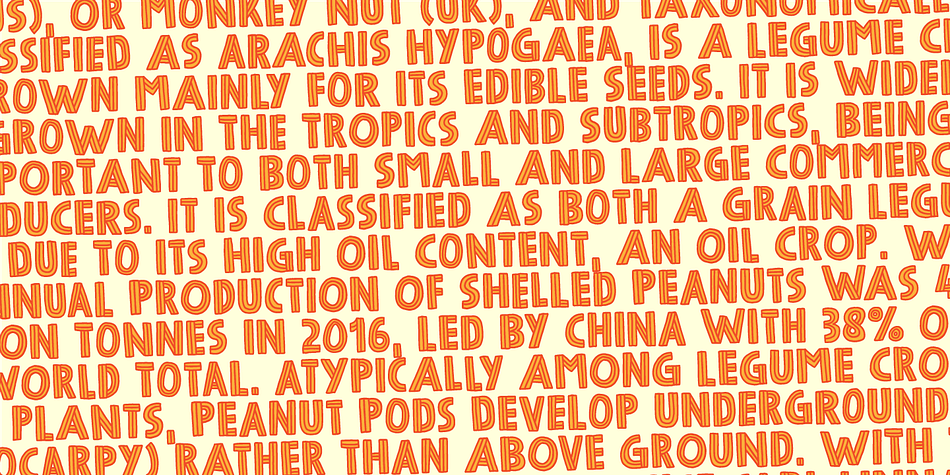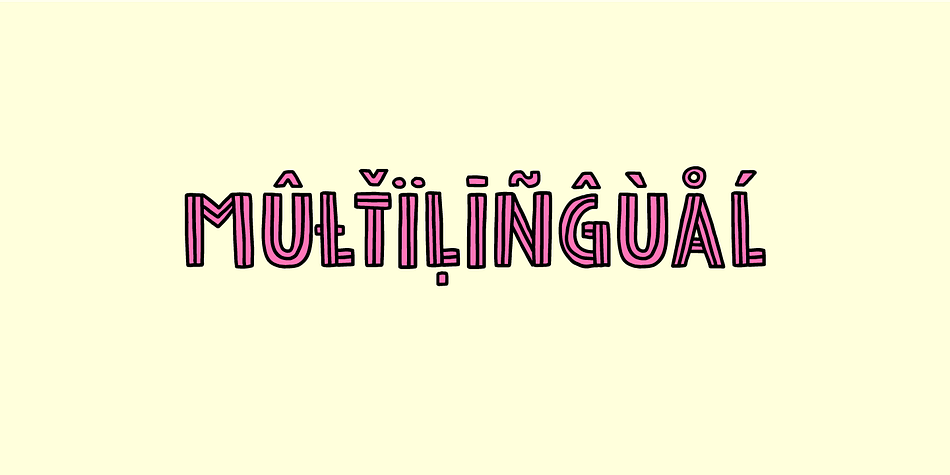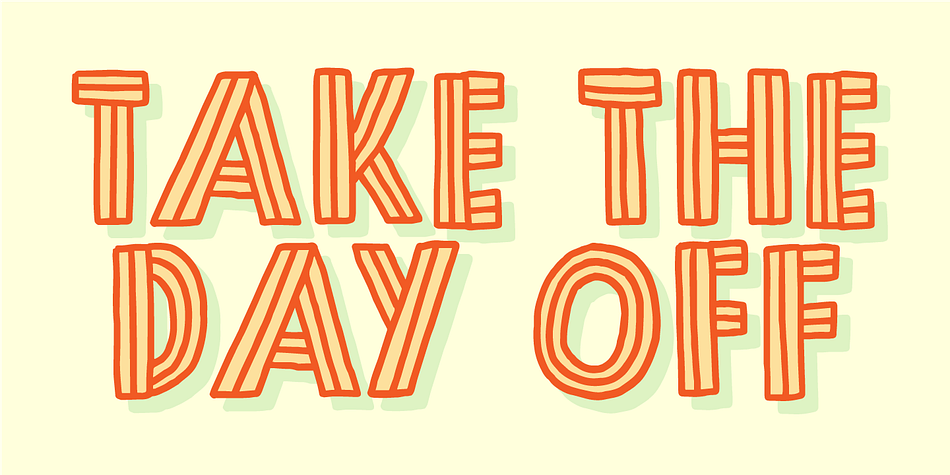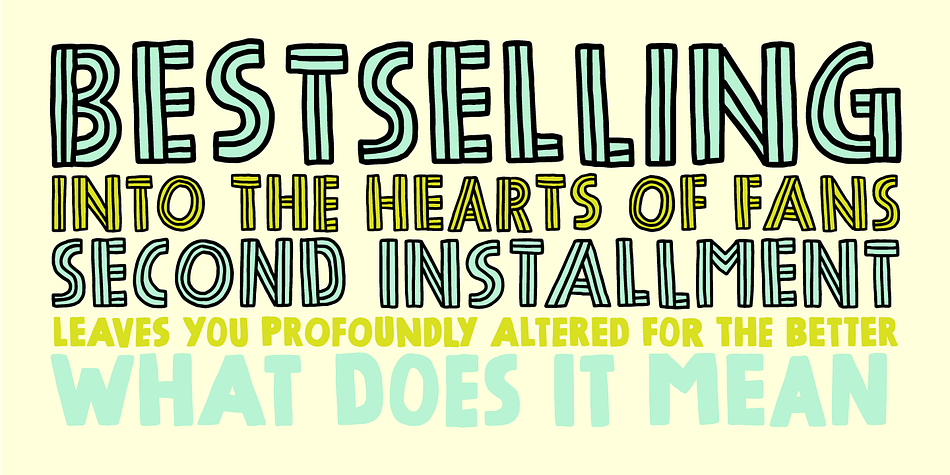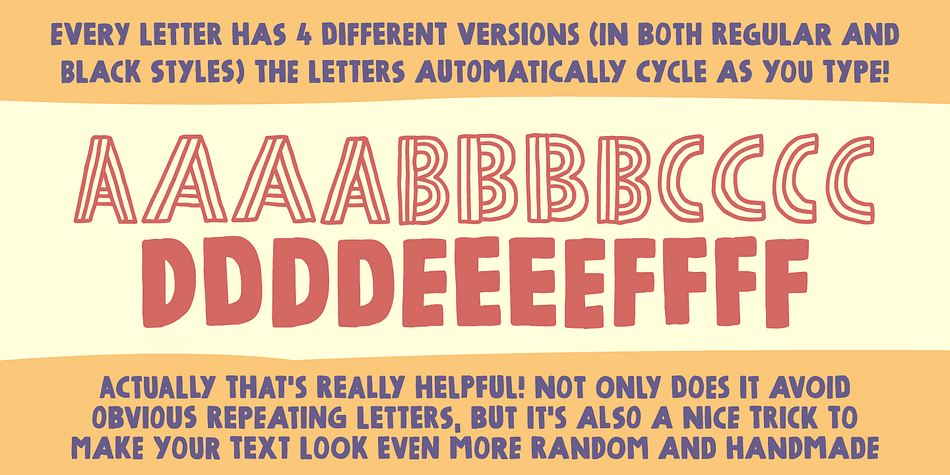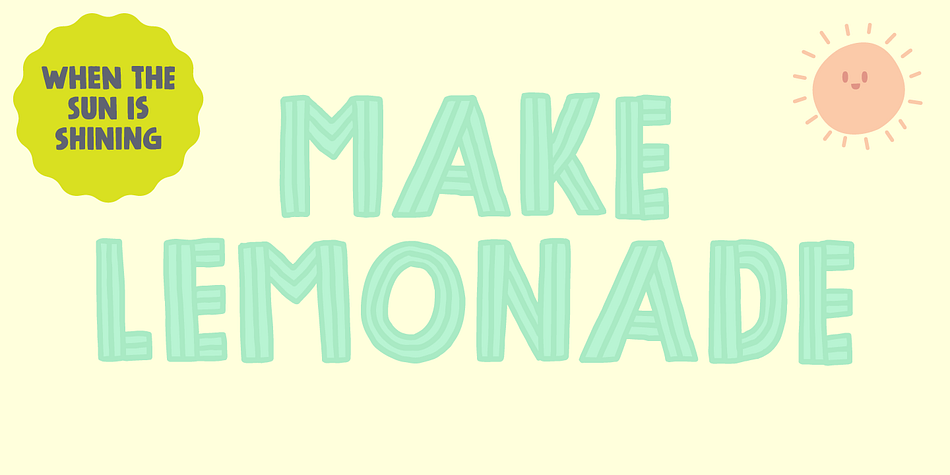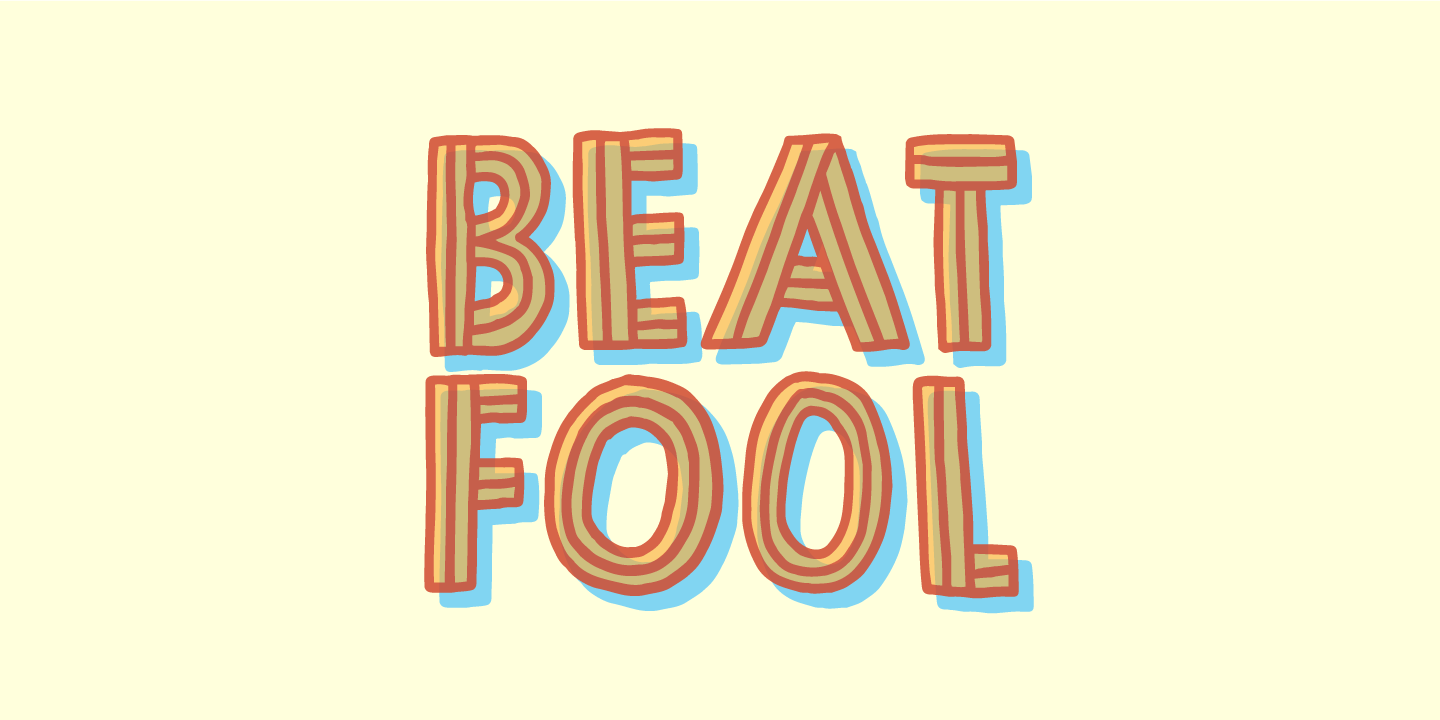
Designed by Jakob Fischer, Beat Fool is a hand display and hand drawn font family. This typeface has two styles and was published by Pizzadude.dk.
Beat Fool is my latest layered font. I love making layered fonts, because the possibilities are almost endless! Play around with transparency and your favourite colorschemes and patterns to create awesome effects!
Beat Fool comes in two layers that plays well together. One layer is solid and can be used for shadow, fill, texture or other creative parts of your design. The second layer is the “Regular” one - the outline that made the basis for the font. I wanted the handmade and handwritten brushstrokes visible, to keep the flaws which makes the look more authentic. Every letter has 4 different versions, again to make things more natural and kind of random!
Both layers can be used alone or as described, together - and since it has multilingual support, you can be creative in all kinds of languages! :)